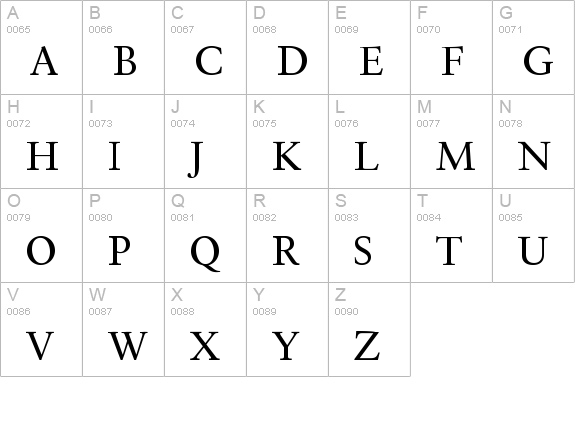
Rawlinson font is a striking and captivating typeface that effortlessly combines elegance with a touch of modernity. This versatile font is perfect for a wide range of design projects, whether it's branding, advertising, editorial work, or even personal creative endeavors. Its unique and eye-catching letterforms will effortlessly grab attention and leave a lasting impression. What makes Rawlinson font even more appealing is that it is freely available to download at FontsMarket.com. This means that designers, artists, and creatives from all walks of life can easily access this remarkable font without any financial constraints. With Rawlinson font, you can unleash your creativity and bring your design visions to life, without having to worry about breaking the bank. The beauty of Rawlinson font lies not only in its aesthetic appeal but also in its versatility. It offers a wide range of weights and styles, allowing you to experiment and find the perfect fit for your specific project. Whether you're looking for a bold and impactful headline, a subtle and refined body text, or something in between, Rawlinson font has got you covered. Furthermore, Rawlinson font boasts excellent legibility, ensuring that your message is effortlessly communicated to your audience. Its carefully crafted letterforms are easy on the eyes, making it a pleasure to read, whether in print or on digital platforms. With Rawlinson font, you can truly elevate your design work and stand out from the crowd. Its unique blend of elegance and modernity sets it apart from other fonts, making it a go-to choice for designers who aim to make a statement. So why wait? Head over to FontsMarket.com and download Rawlinson font for free today, and let your creativity soar to new heights.